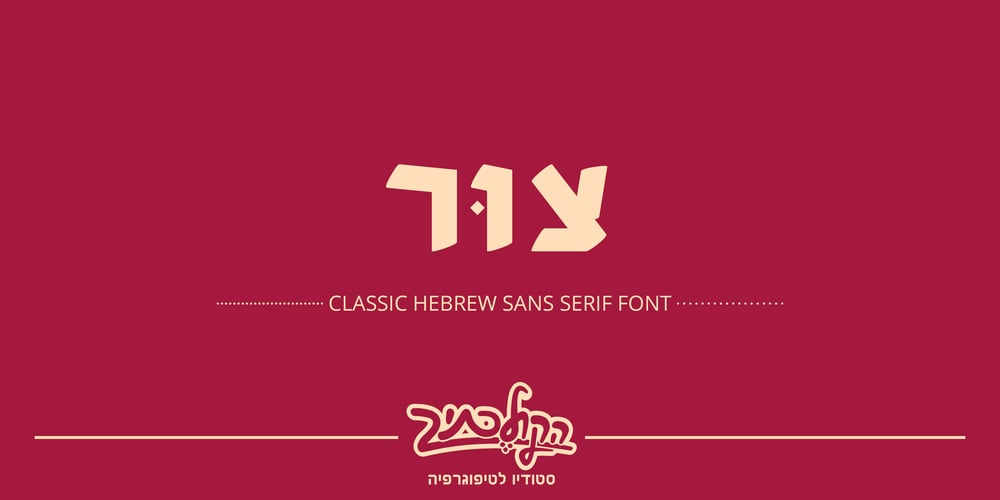
Tzur Font Family was designed by Shahar Ben Sidi and published by Hacollective. Tzur contains 5 styles and family package options. Tzur is a Hebrew sense-serif font with a nostalgic scent.The shape of the letters has two qualities – Raw and processed – and they are combined without canceling each other out.The resulting product is a font that conveys power, stability, and prominence, and echoes typographic values that correspond with the graphic/visual language that was accepted in The early years of the State of Israel.